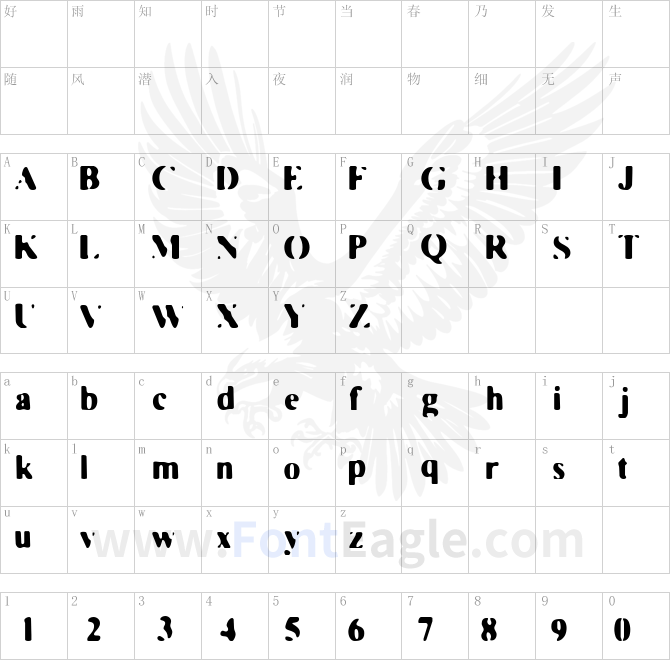
Faded-MovieStar is a great font, widely used in graphic design, single-page menu design, poster design and other fields, and is deeply loved by designers.Faded-MovieStar download.